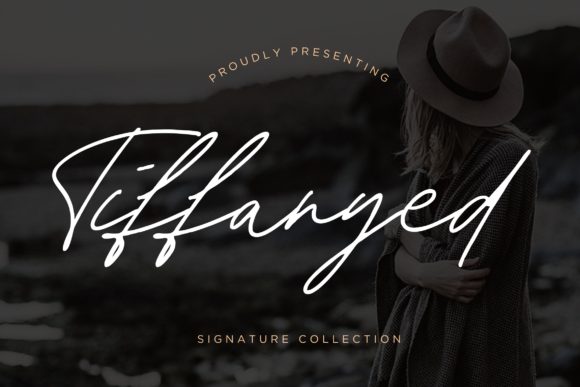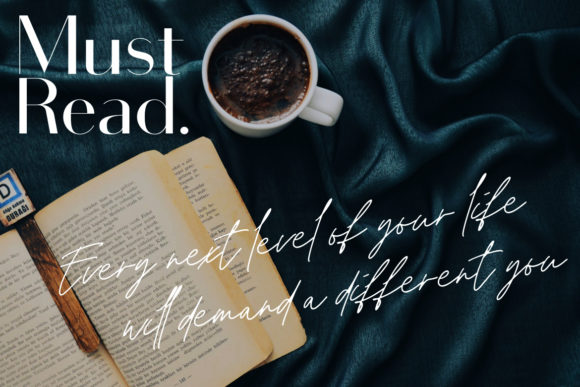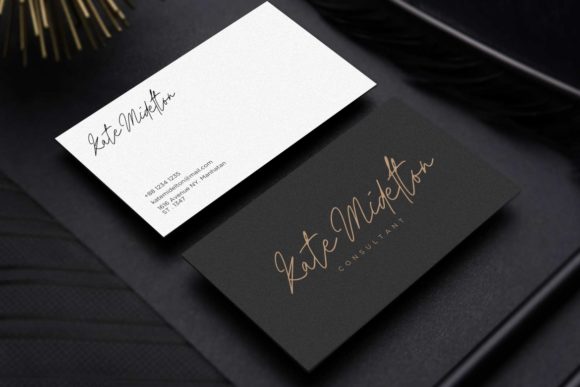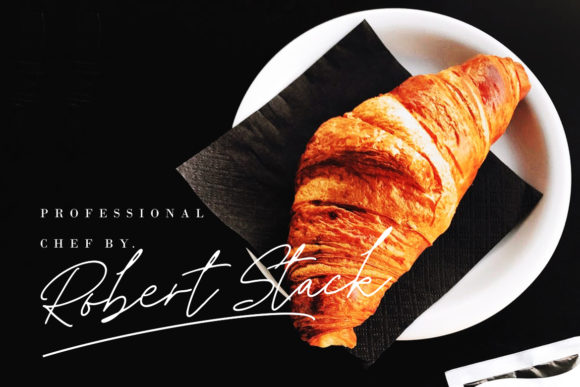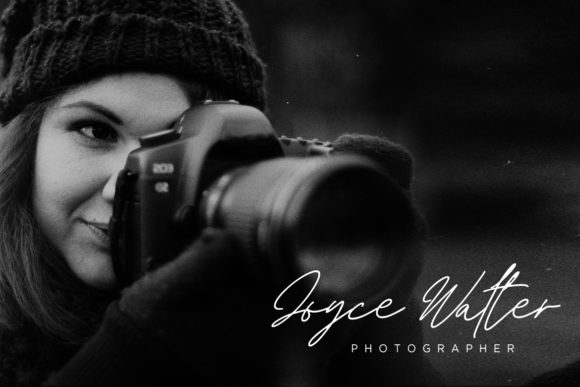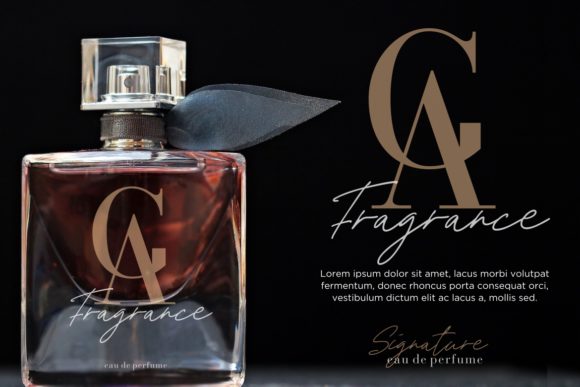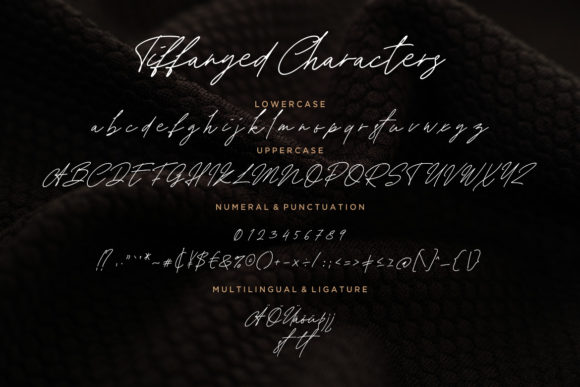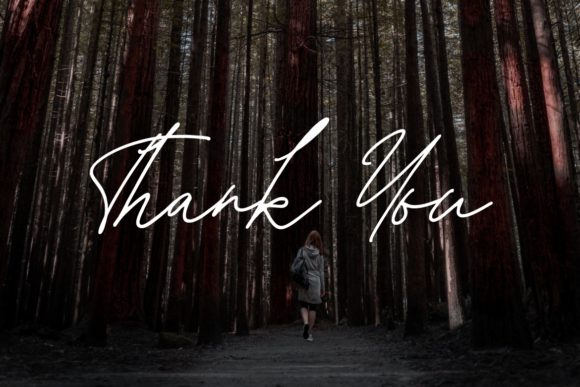
HomeScript FontsTiffanyed Font Script Fonts Tiffanyed Font FacebookXPinterestWhatsApp Tiffanyed Font Poster 2 Tiffanyed Font Poster 3 Tiffanyed Font Poster 4 Tiffanyed Font Poster 5 Tiffanyed Font Poster 6 Tiffanyed Font Poster 7 Tiffanyed Font Poster 8 About Tiffanyed Font Tiffanyed is a classic signature font that will add an authentic vibe to any design project. DOWNLOAD ON CREATIVE FABRICAThis font is sold and delivered by Creative Fabrica. Font Canyon may earn a commission if you buy through this link. People also explored Ribbon Luxury Font Sweet Choco Font Roes Blues Font Geoffani Script Font Sportex Workout Font Milkshake Font Good Vibes Font Peperoncino Vintage Sureton Comics Font 399 0 TagsTiffanyed Font Previous articleMelanott FontNext articleLettyh Font LEAVE A REPLY Cancel reply Comment: Please enter your comment! Name:* Please enter your name here Email:* You have entered an incorrect email address! Please enter your email address here Website: Save my name, email, and website in this browser for the next time I comment. Personal Use Free Nugo Sans Personal Use Free Read more about this font Numberpile Personal Use Free Read more about this font Proudly Personal Use Free Read more about this font The Kingdom Personal Use Free Read more about this font BLOG Exploring Font Trends Shaping Communication in the Digital Era Fonts, like all design elements, are subject to trends. They play a crucial role in communicating a brand's personality,... Where to Buy American Fonts Online in 2024 Free Fonts Risk: Why Free Fonts Can Be Dangerous for Designers Transform Your Website: Elevate Your Typography with 7 Best Web Font Generators